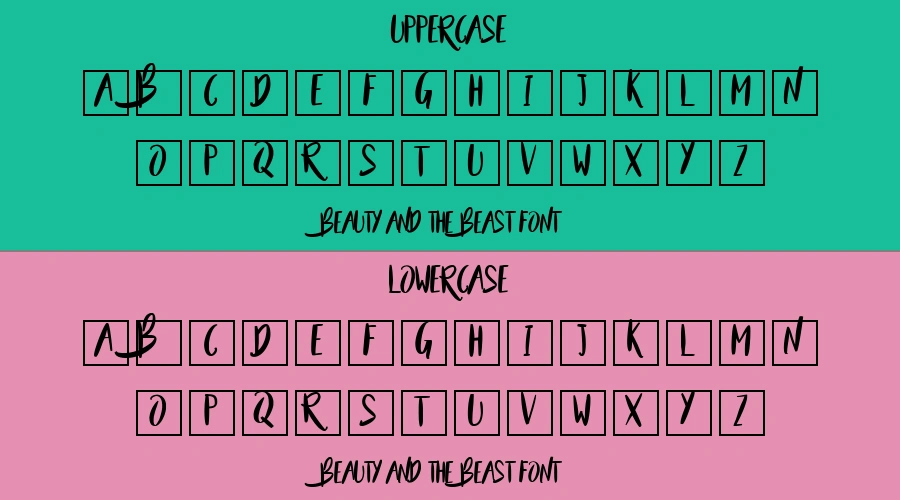
About Beauty And The Beast Font
Beauty And The Beast Font stands out for its distinctive combination of natural flow and traditional values. Ideal for engineering drawings, it provides the functionality and technical mastery that professional projects demand. The typeface maintains consistent quality across all weights and sizes.
Key features include refined pressure variations and practical technical characters, enhancing typographic expression. In colophons applications, Beauty And The Beast Font demonstrates exceptional language switching. The letterfit and market position contribute to its distinctive character and professional appeal.